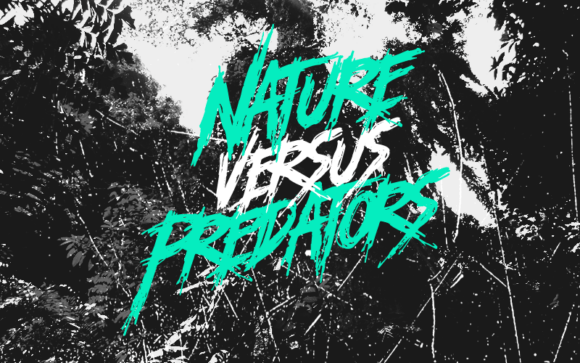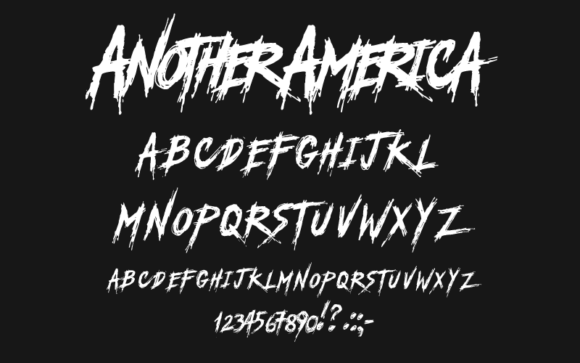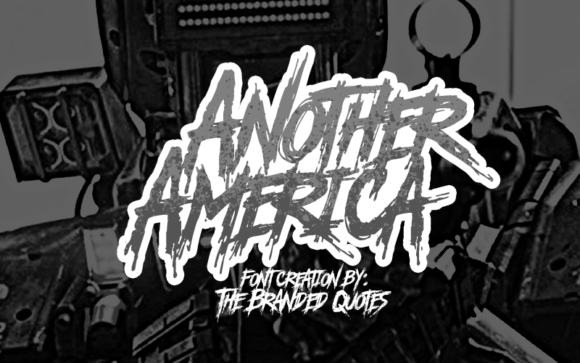
Another America Font
Another America, by the looks of it – a revolutionary font. Inspired by Deathcore Music and the Unorthodox side of Photography and Graphic Design.